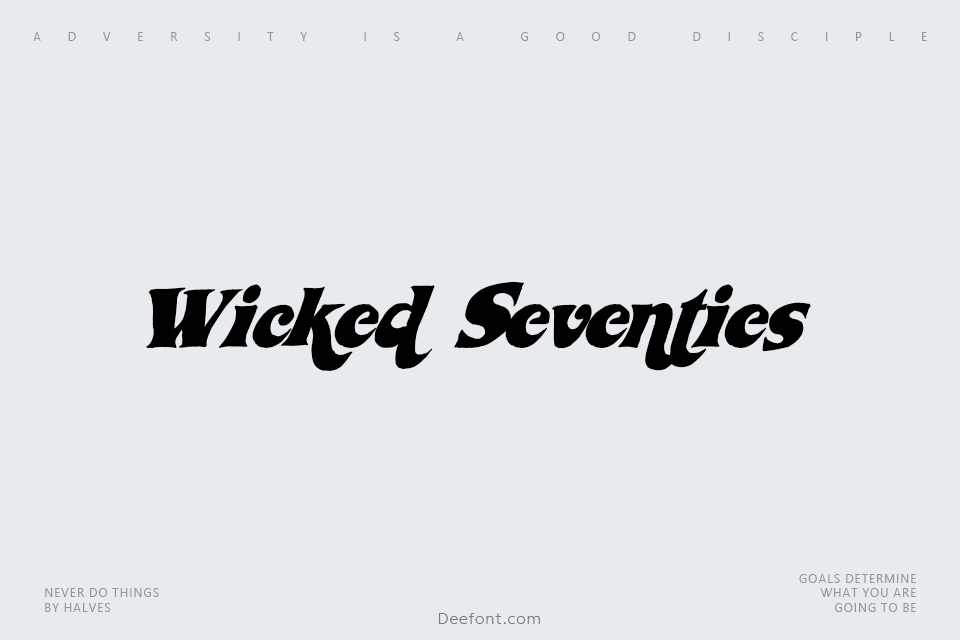
Wicked Seventies Font
Wicked Seventies is a vibrant retro display font that captures the bold, groovy essence of 1970s design. With its distinctive curves and eye-catching letterforms, this donationware typeface brings authentic vintage flair to posters, album covers, headlines, and creative branding projects. Perfect for designers seeking nostalgic aesthetics and groovy typographic impact.